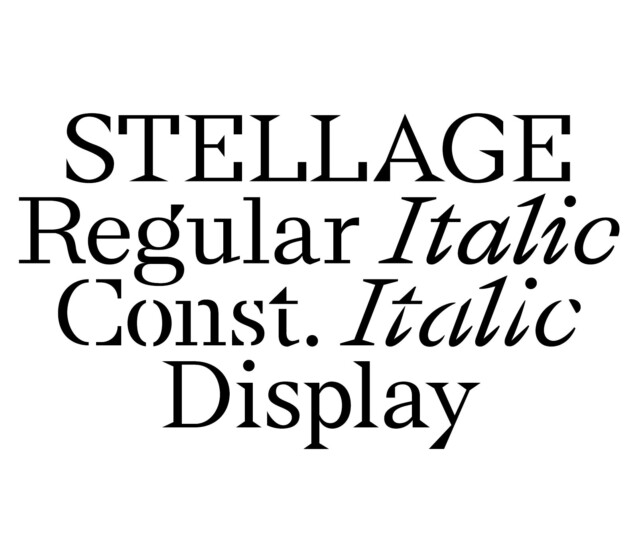
Stellage Font Family
Stellage Font Family is a new editorial serif with clean and smooth lines, tight curves, and subtle yet sharply contrasting serifs. It is a typeface series that exudes elegance and confidence. It is designed perfectly to meet all your needs, whether you’re creating nostalgic designs that remain clean and elegant, or working on projects like headlines, magazines, logos, packaging, editorials, and more.